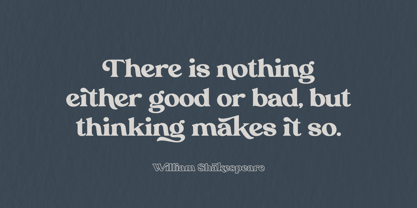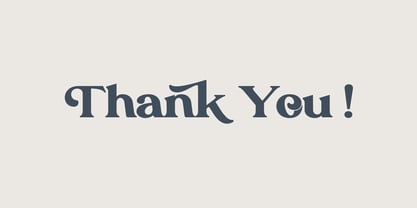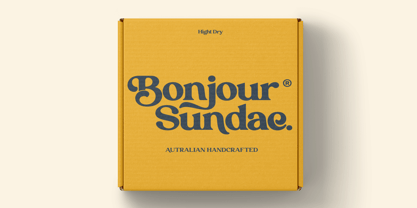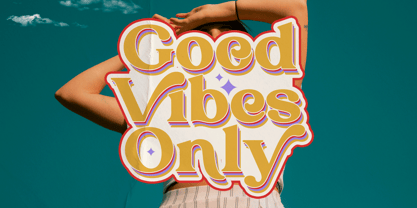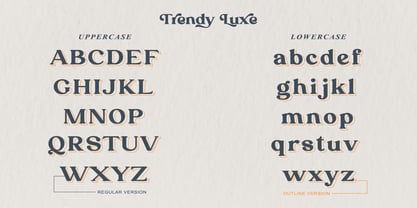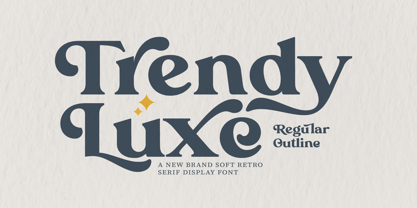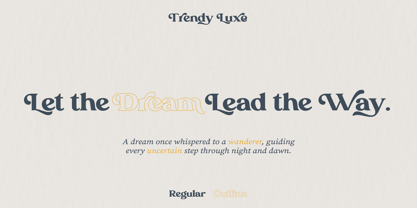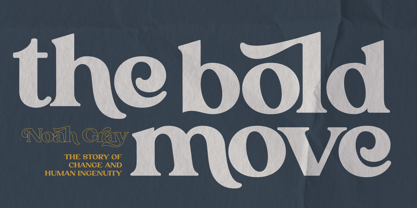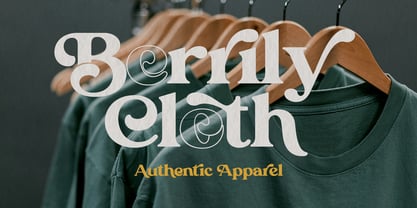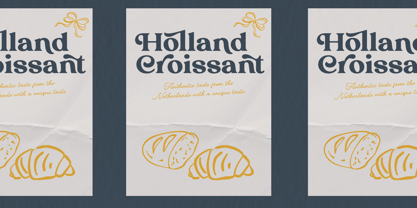
Trendy Luxe
The Trendy Luxe Font Family was designed by Muhajir Akarim and published by Soft Creative. Trendy Luxe contains 2 styles and family package options. More about this family
Introducing Trendy Luxe, a serif face font that blends classic retro charm with a soft, luxurious modern touch. Each letter is crafted with the perfect balance of bold shapes and graceful, flowing curves, making it an ideal choice for designs that aspire to be classy, ​​glamorous, and full of character. This font embodies the feel of vintage scenery in a contemporary, stylish look, bringing a captivating visual impact to any design project—from logos and branding to product packaging and fashion editorials to exclusive invitations. Trendy Luxe is more than just a font. It's a revolutionary modern luxury font, created for those who value beauty, uniqueness, and timeless style.